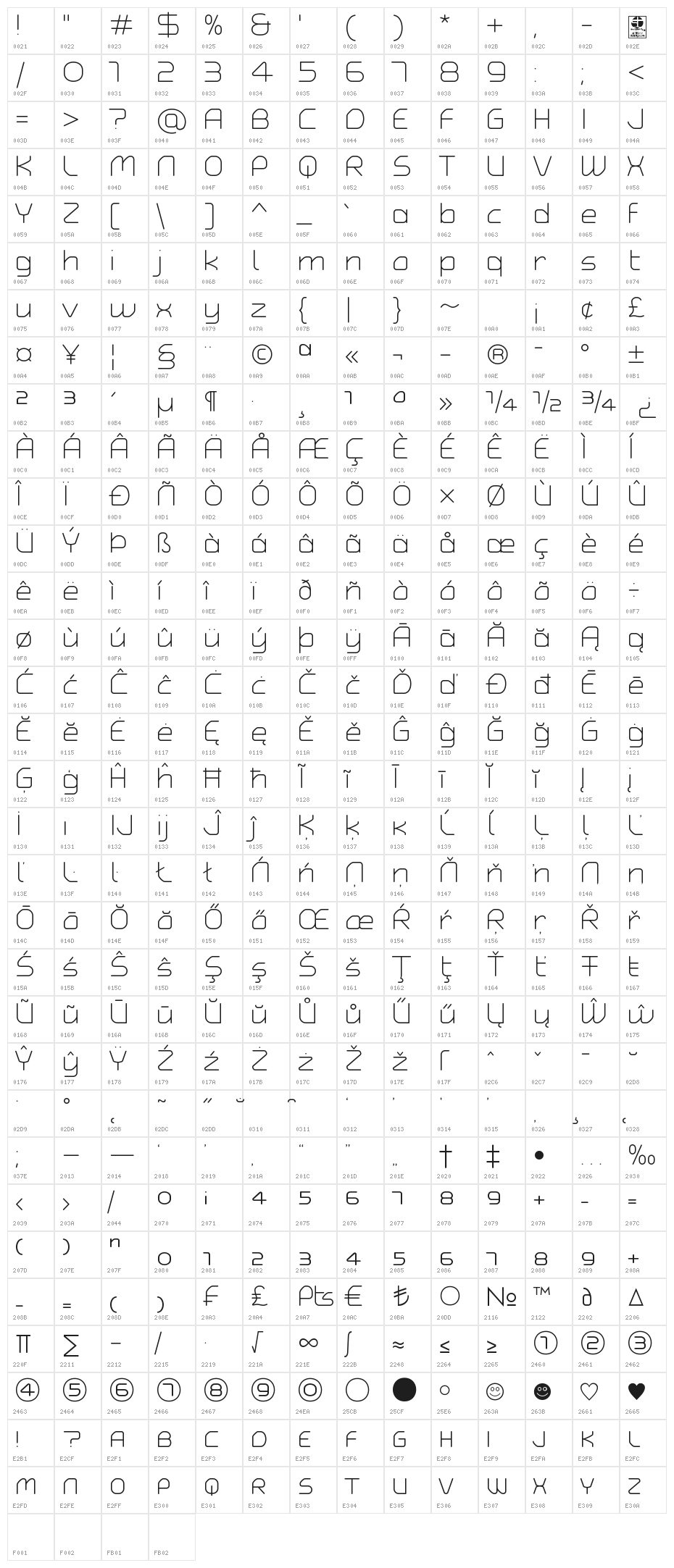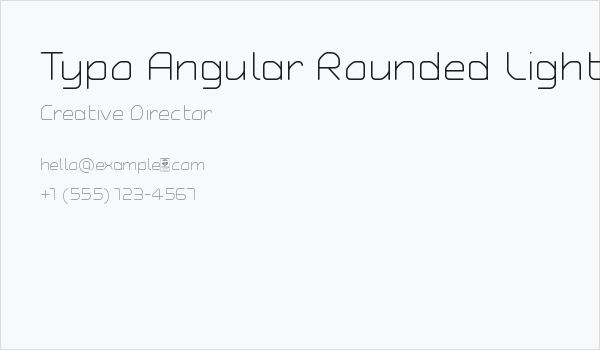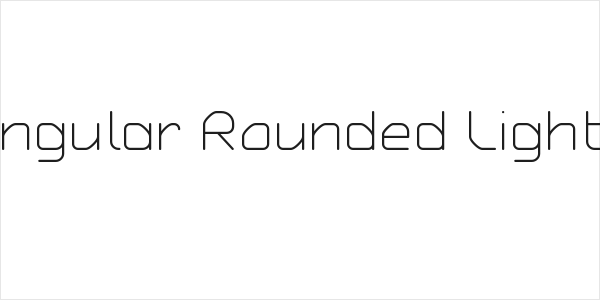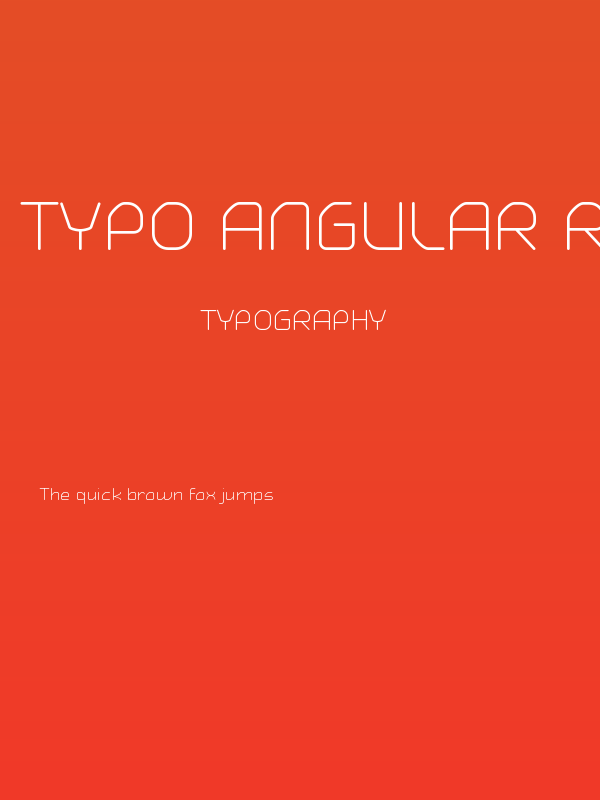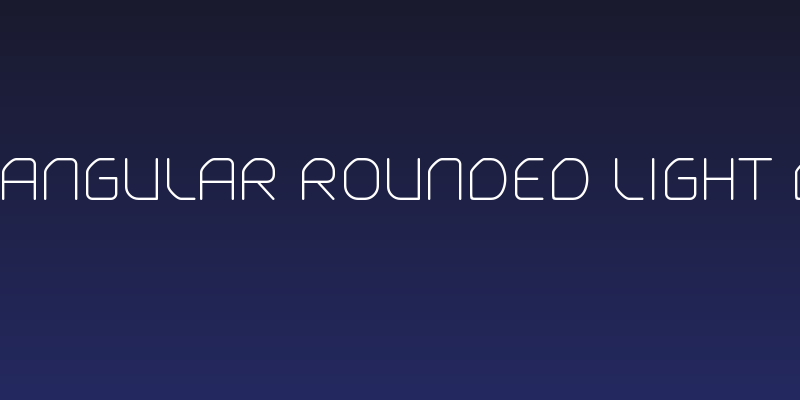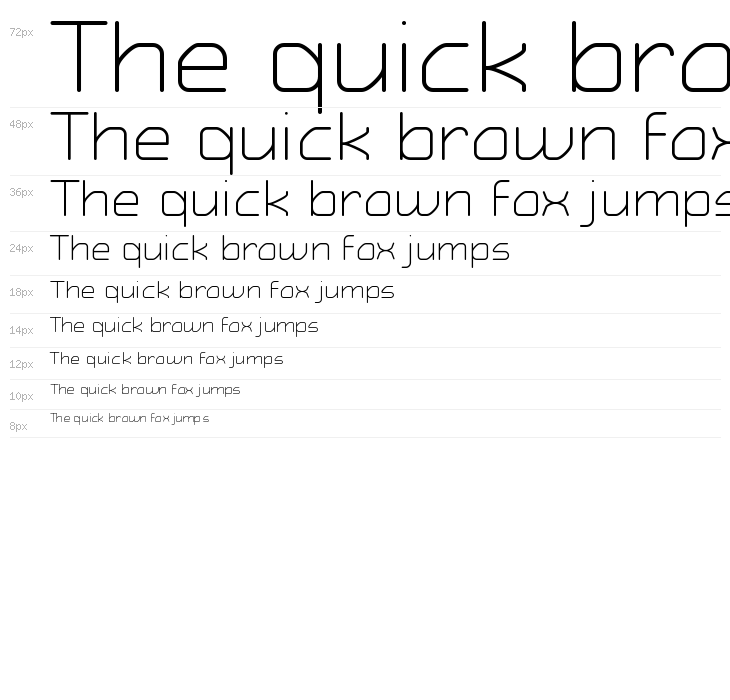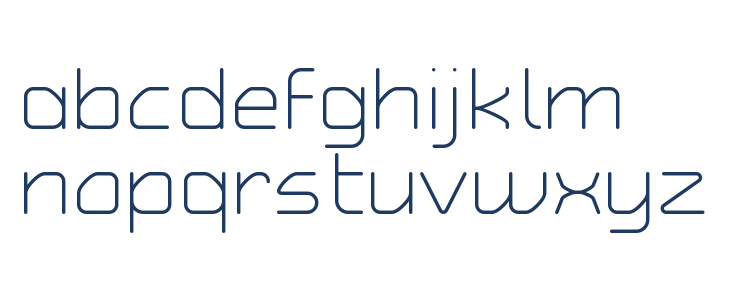
Typo Angular Rounded Light Demo Font
Typo Angular Rounded Light Demo Description
This font features a modern, geometric design with rounded edges and a light weight. The characters are constructed with a consistent stroke width, giving it a clean and minimalistic appearance. The angular shapes are softened by the rounded corners, creating a harmonious blend of sharp and smooth elements. This font is highly legible and versatile, suitable for a variety of design applications. The spacing between characters is balanced, ensuring readability while maintaining a sleek aesthetic. Its contemporary style makes it ideal for projects that require a fresh and innovative look.
| Use Case | Headlines, Logos, Web design |
| Proposed Projects | Ideal for tech branding, modern web design, minimalist posters, and innovative product packaging. |